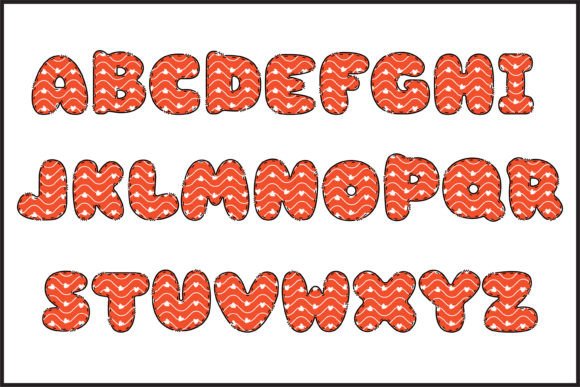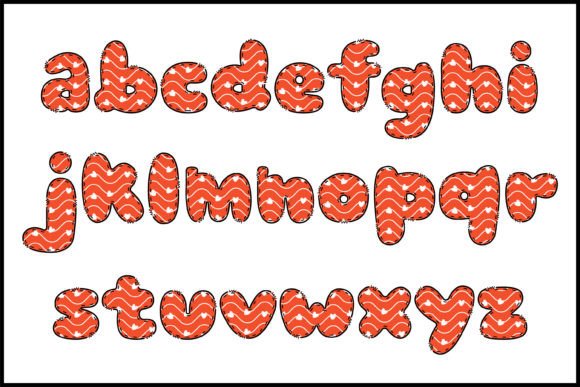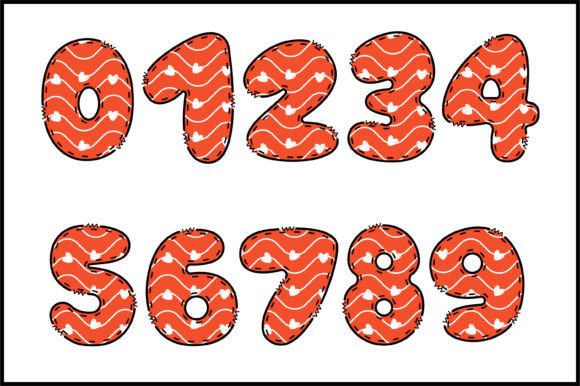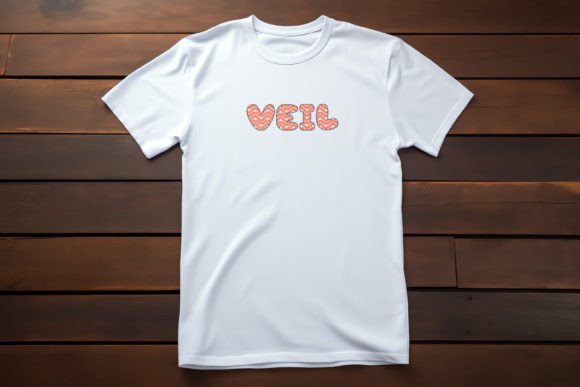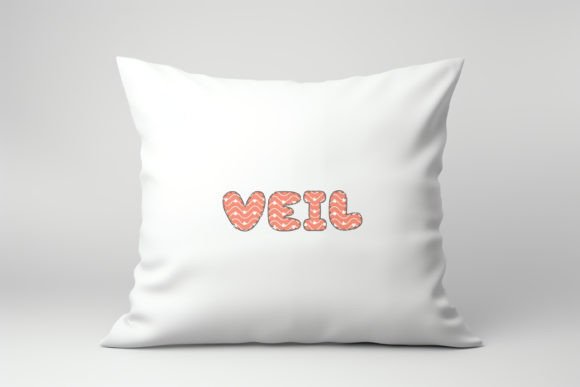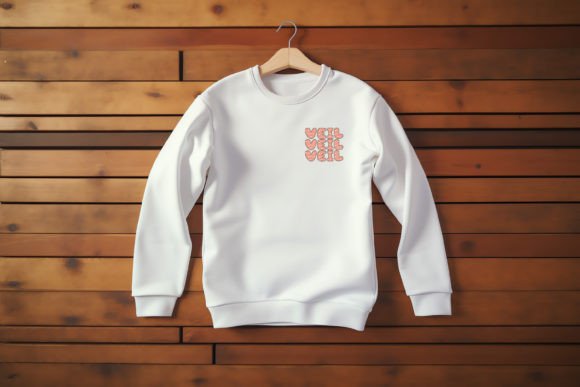
Discover the Whimsical Charm of Another Love Font
Are you a designer or crafter looking for a font that can add a playful and artistic touch to your projects? Look no further than Another Love Font, a delightful typeface that’s perfect for creating engaging and visually appealing designs. In this article, we’ll explore the features and benefits of Another Love Font, and how you can use it to elevate your designs.
The Perfect Font for Playful Designs
Another Love Font is a versatile typeface that’s ideal for designs that require a playful or artistic feel. Its whimsical and colorful nature makes it perfect for use in children’s books, posters, invitations, greeting cards, and more. The font’s unique charm is sure to capture the attention of your audience and leave a lasting impression.
Use in Children’s Books
Children’s books are a great example of where Another Love Font can shine. The font’s playful and colorful nature creates an engaging reading experience for young audiences. The font is easy to read, making it perfect for stories, nursery rhymes, and educational materials. With Another Love Font, you can create a visually appealing and engaging book that will delight children and parents alike.
Benefits of Using Another Love Font
So, why choose Another Love Font for your designs? Here are just a few benefits of using this delightful typeface:
- Playful and Artistic Feel: Another Love Font adds a playful and artistic touch to your designs, making them perfect for projects that require a creative and whimsical feel.
- Easy to Read: The font is easy to read, making it perfect for use in children’s books, educational materials, and other designs where readability is crucial.
- Versatile: Another Love Font is a versatile typeface that can be used in a variety of designs, from posters and invitations to greeting cards and more.
Tips for Using Another Love Font
Here are a few tips for using Another Love Font in your designs:
- Experiment with Colors: Another Love Font comes in both black and color versions. Experiment with different colors to add a pop of color to your designs.
- Pair with Other Fonts: Another Love Font pairs well with other fonts. Experiment with different font combinations to create a unique and visually appealing design.
- Use in Combination with Images: Another Love Font looks great when used in combination with images. Use the font to add text to your images, creating a visually appealing design.
Another Love Font is a delightful typeface that’s perfect for designers and crafters looking to add a playful and artistic touch to their projects. With its whimsical and colorful nature, the font is ideal for use in children’s books, posters, invitations, greeting cards, and more. Whether you’re a seasoned designer or a DIY enthusiast, Another Love Font is sure to become a favorite in your design arsenal.